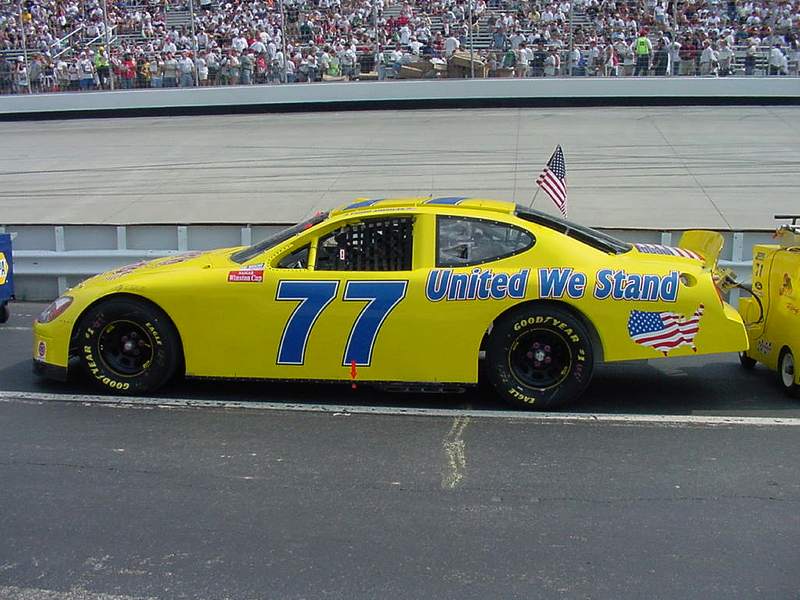
I tried FMF but it did not work image too low res I guess.
Can anyone help with this font.
I had not problem identifying this with FmF.
It looks like a manually slanted Gill Sans Condensed Bold.
Your sample is probably further emboldened and the /d is cut-off at the top.
Well I added the pic clicked on the letters and it was no where close, But i appreciate your help.